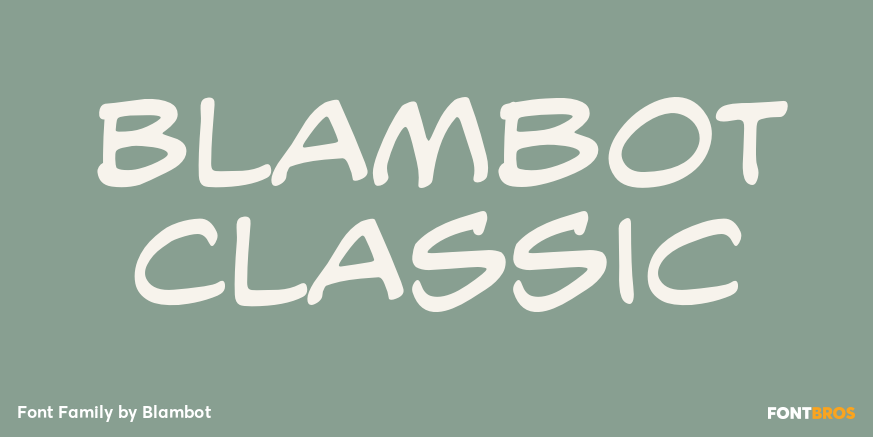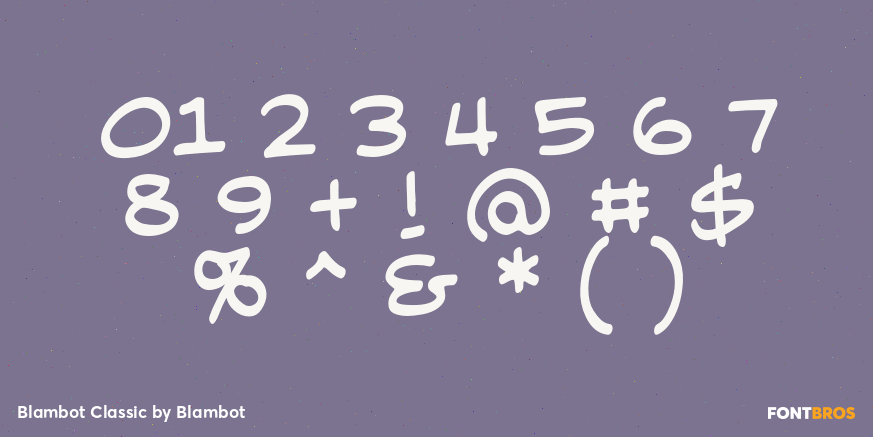
Blambot Classic
Font Family by Blambot
Based in part on the hand lettering of Nate Piekos with a smattering of classic 1980's-era super hero aesthetic thrown in for good measure!
Comes with Regular, Italic and Bold, with a hefty compliment of European characters.